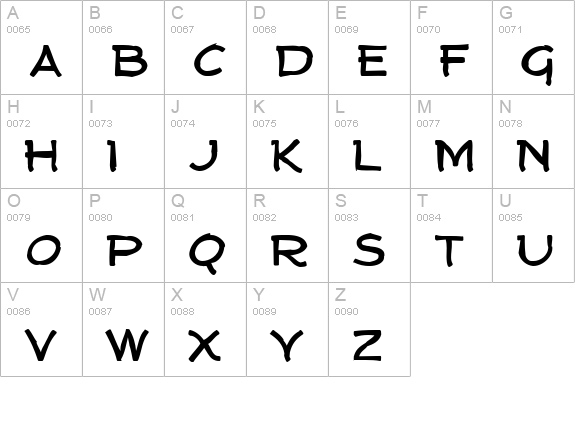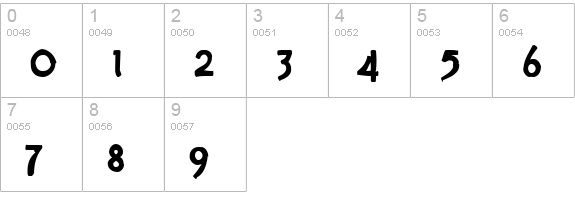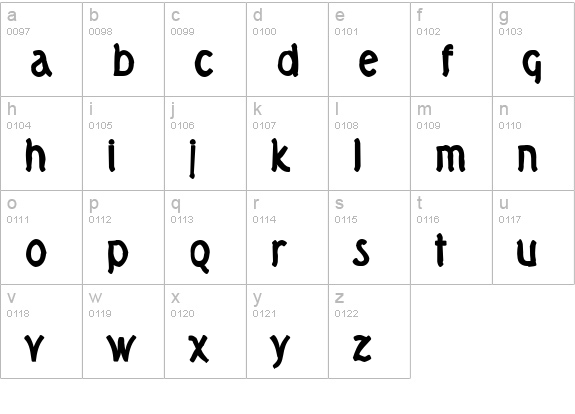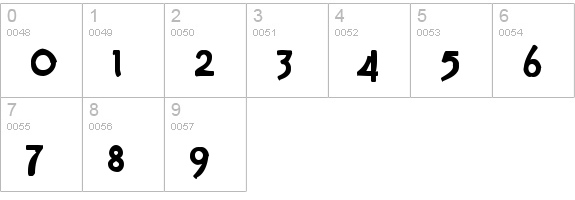
Tork Ink font is a modern and stylish typeface that exudes sophistication and elegance. With its sleek lines and bold strokes, this font is perfect for creating eye-catching designs that demand attention. The versatility of Tork Ink makes it suitable for various design projects, from branding to editorial layouts. What sets Tork Ink font apart is not just its striking appearance, but also the fact that it is available for free download. Yes, you read that right - Tork Ink font is freely available to download at FontsMarket.com. This means you can elevate your design projects without breaking the bank, making it a fantastic option for both professionals and enthusiasts alike. Don't miss out on the opportunity to add Tork Ink font to your collection and take your designs to the next level. Download it today and unleash your creativity with this stunning typeface.